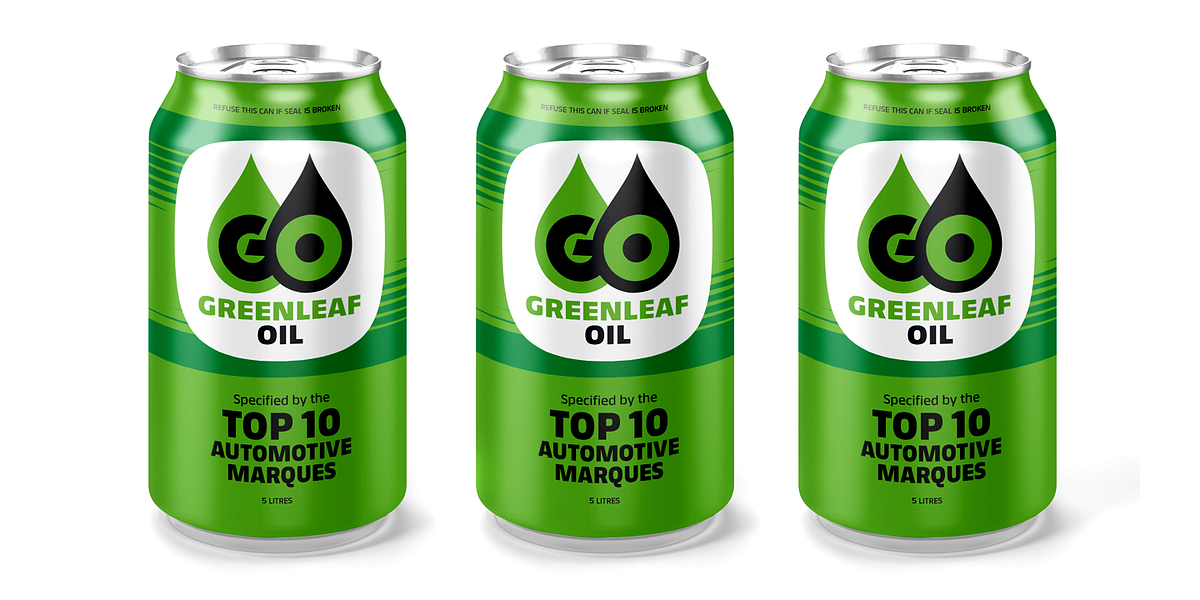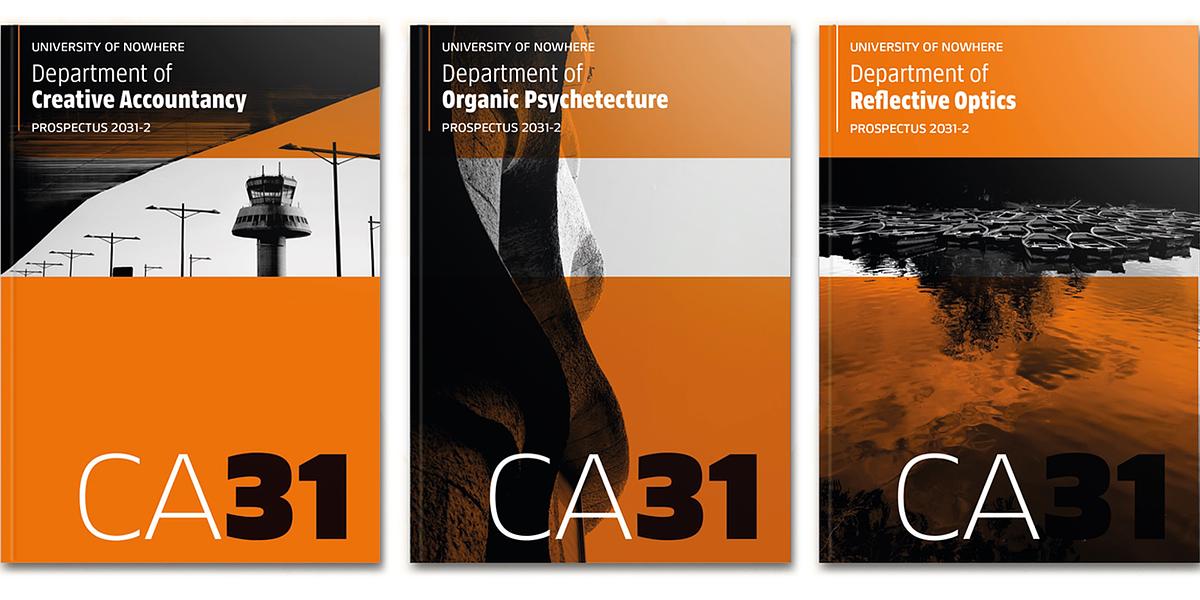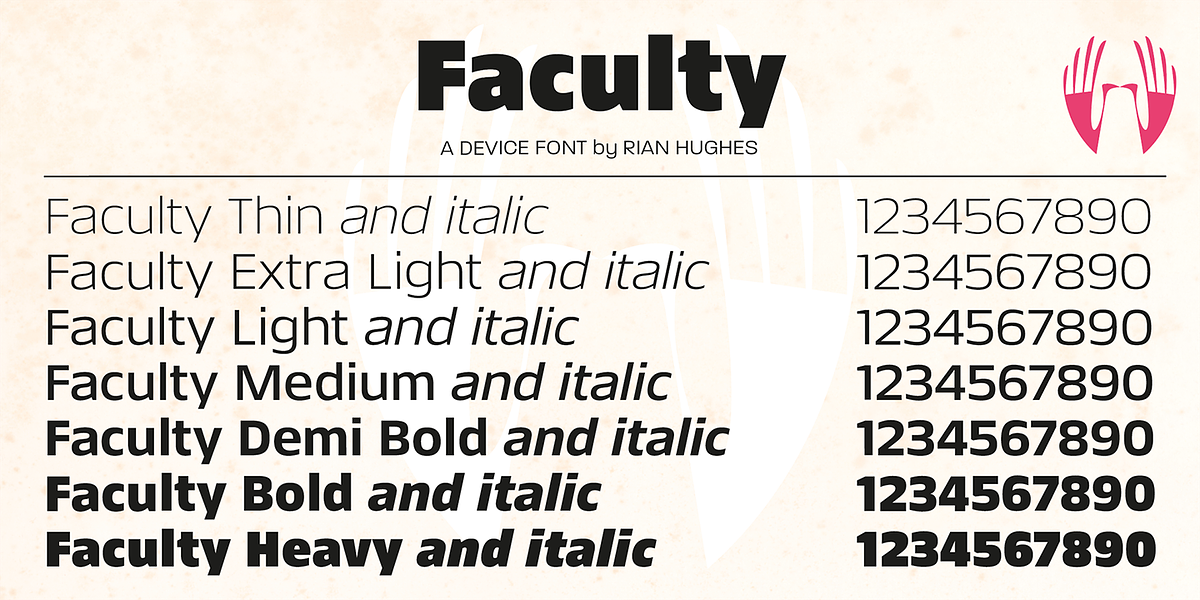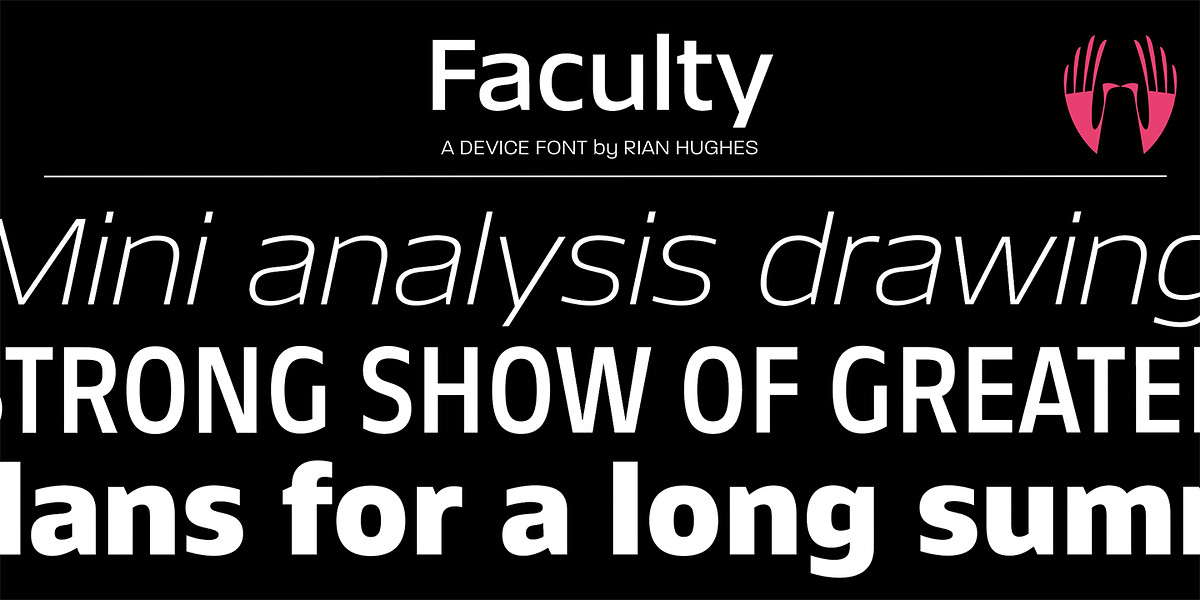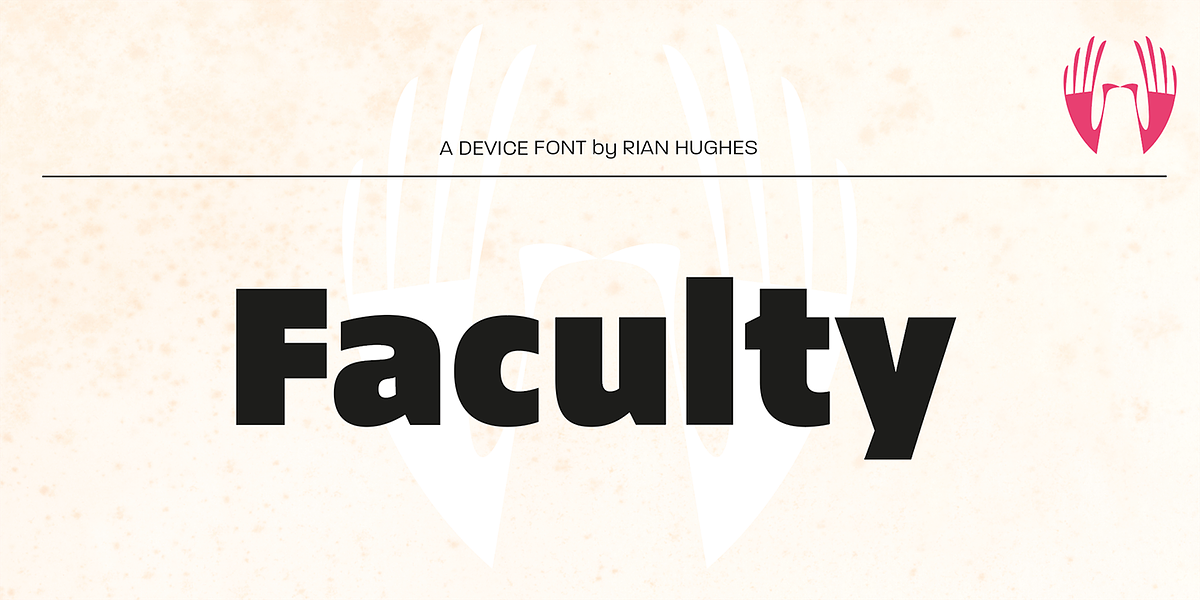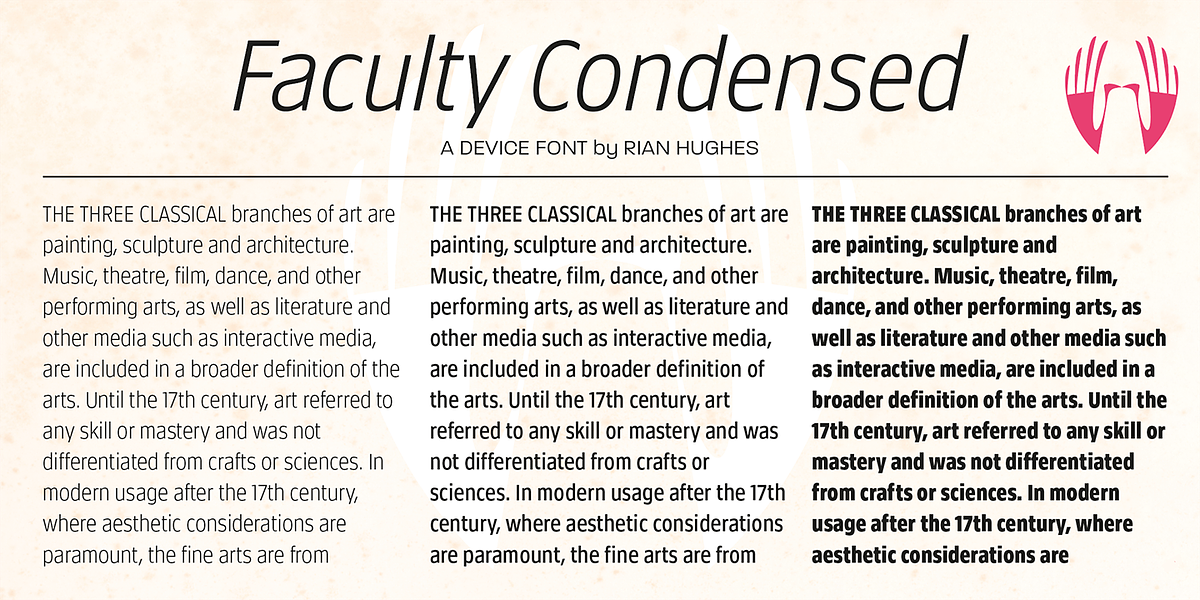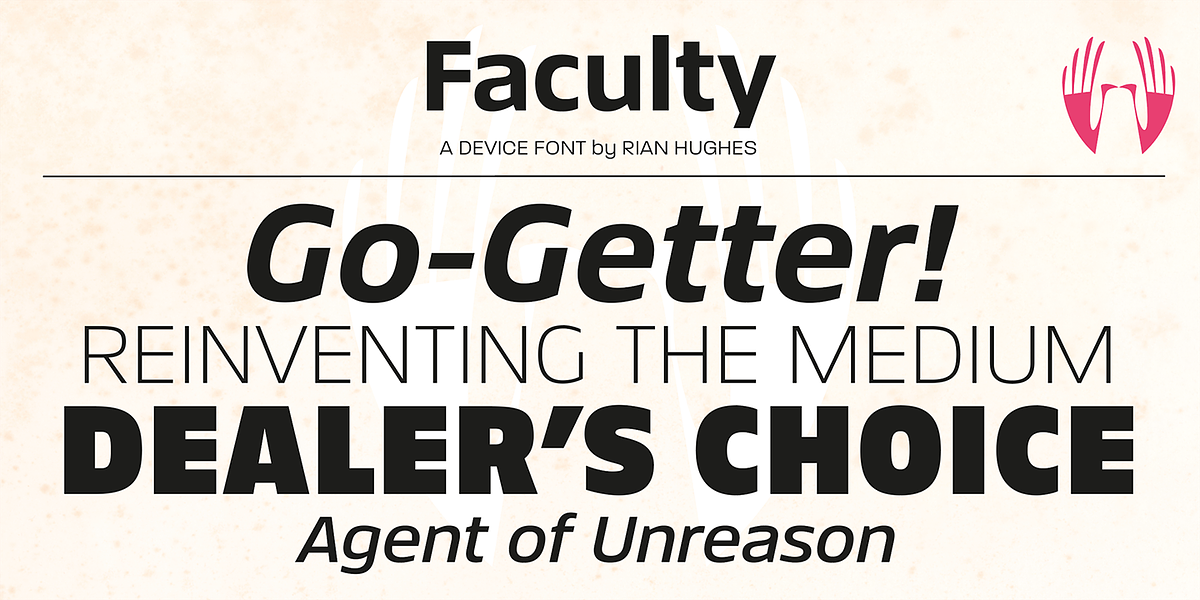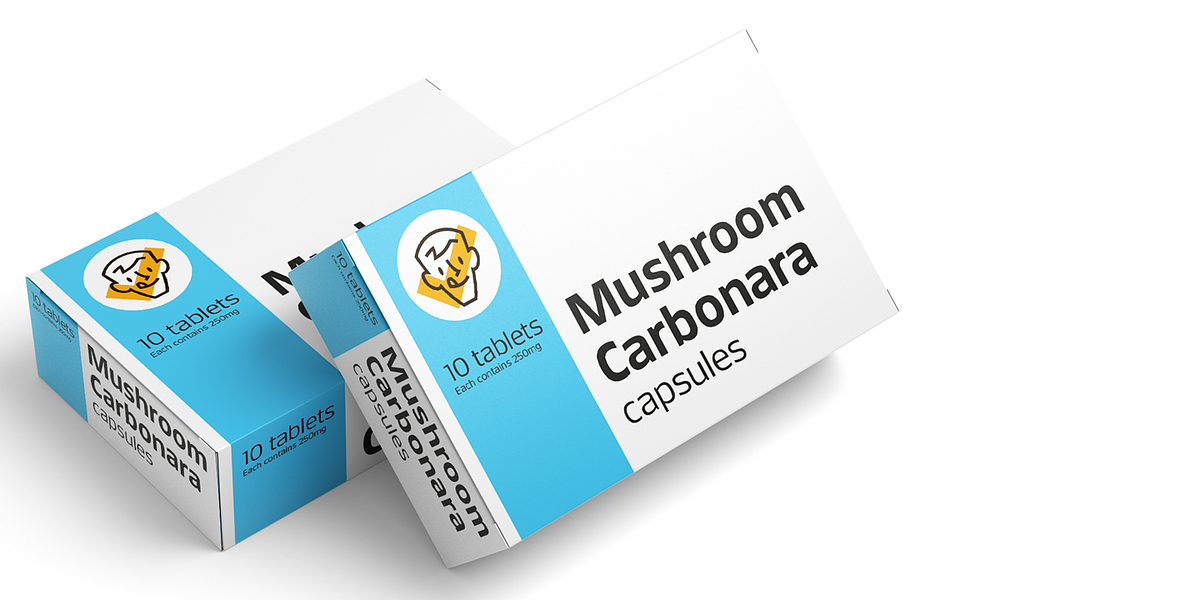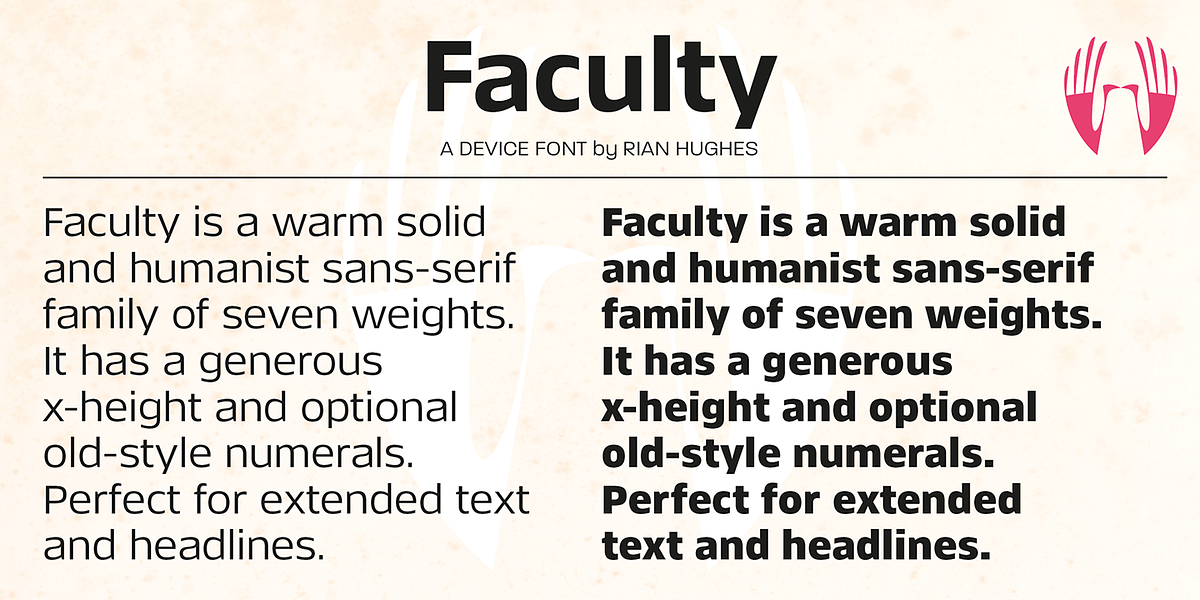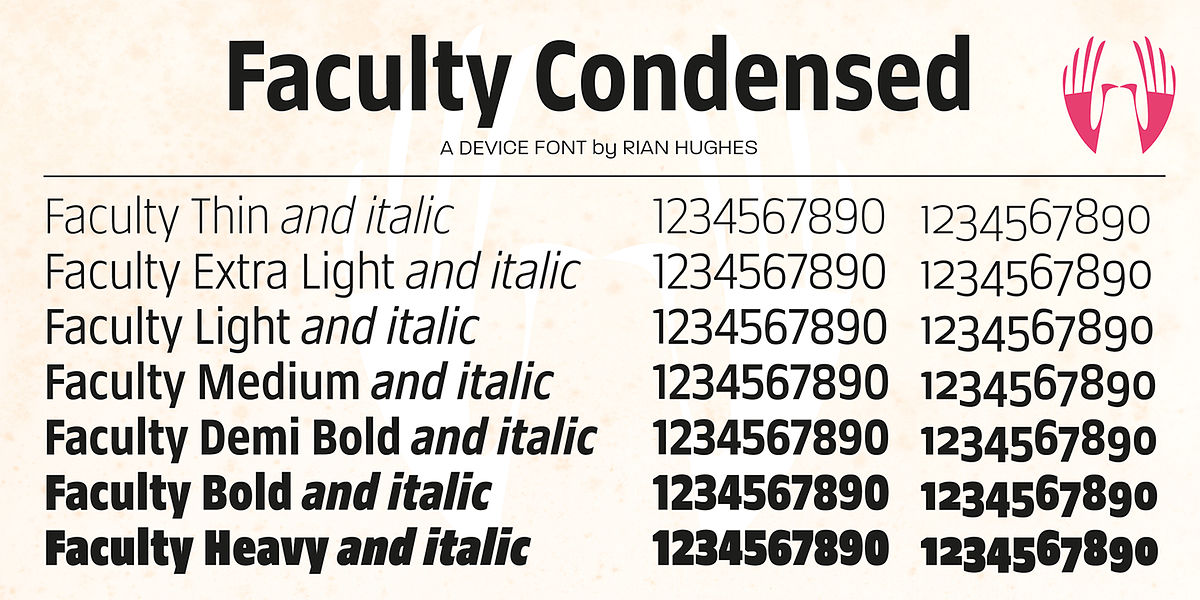
Faculty
Faculty is a humanist sans serif font designed for clarity and versatility. Its large x-height improves readability in both text and headlines. The carefully crafted stroke terminals minimize inter-letter spacing, resulting in an even appearance across extended text blocks. The font family offers extensive language support, alternative characters, and various numeral styles (lining, tabular, and old style), making it a suitable choice for diverse typographic needs.